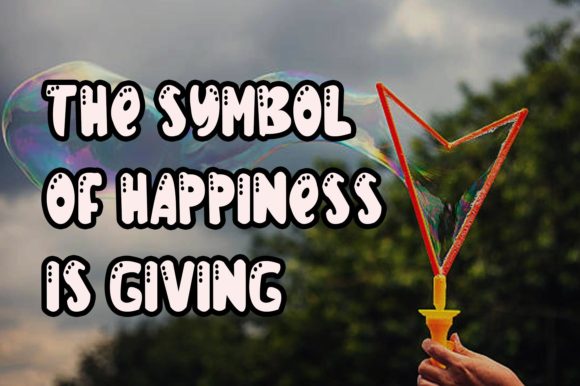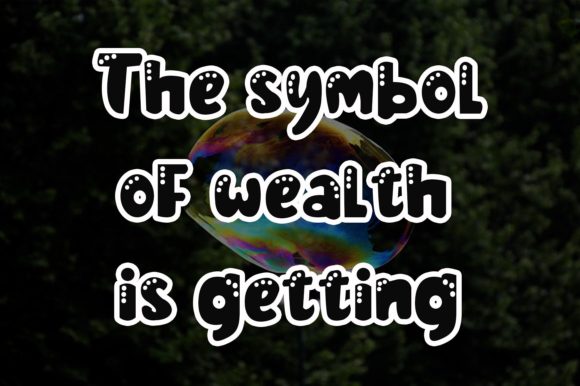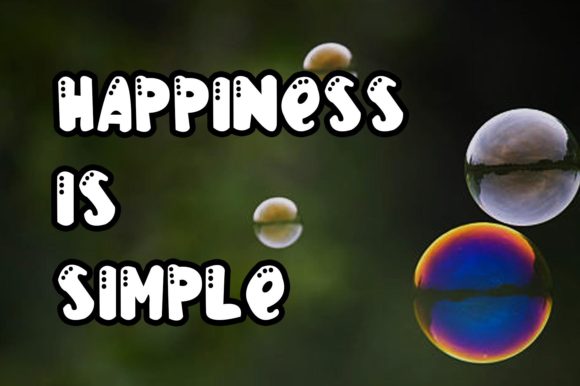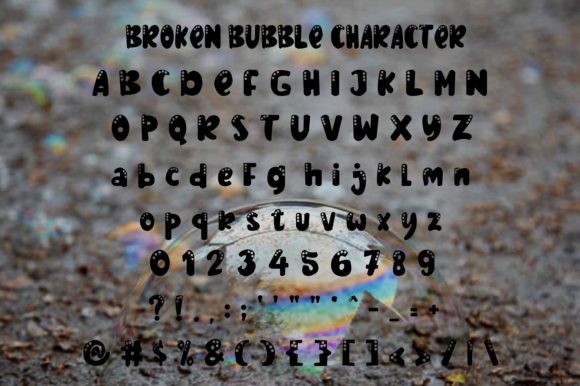
Introducing Broken Bubble Font: The Cute and Friendly Display Font You Need!
Are you tired of using the same old fonts for your creative projects? Look no further! Broken Bubble Font is here to shake things up and bring a fresh touch to your designs. This adorable display font is perfect for anyone looking to add a playful and friendly vibe to their work. Whether you’re a designer, crafter, or simply a DIY enthusiast, Broken Bubble Font is sure to become your new go-to.
What Makes Broken Bubble Font So Special?
Broken Bubble Font is a cute and friendly display font that is sure to turn heads. Its unique and quirky design makes it perfect for a wide range of creative projects, from Instagram posts and stories to calligraphy scripts and DIY crafts. The font’s bubbly and playful personality shines through in every letter, making it an excellent choice for anyone looking to add a touch of whimsy to their work.
Broken Bubble Font is a versatile font that can be used in a variety of contexts. Designers will love using it for:
- Branding and packaging design: Add a playful touch to your brand’s identity with Broken Bubble Font.
- Social media graphics: Make your Instagram posts and stories stand out with this eye-catching font.
- Web design: Use Broken Bubble Font to create a fun and friendly website that reflects your brand’s personality.
Crafters and DIY enthusiasts will also adore Broken Bubble Font for:
- Calligraphy scripts: Add a personal touch to your hand-lettered projects with Broken Bubble Font.
- DIY crafts: Use Broken Bubble Font to create custom signs, banners, and decorations for parties and events.
- Paper crafting: Add a playful touch to your cards, scrapbook pages, and journal entries.
Why Choose Broken Bubble Font?
So, what sets Broken Bubble Font apart from other fonts? Here are just a few reasons why you should choose Broken Bubble Font for your next project:
- Unique design: Broken Bubble Font has a one-of-a-kind design that is sure to grab attention.
- Easy to read: Despite its playful design, Broken Bubble Font is easy to read and understand.
- Versatile: Use Broken Bubble Font in a variety of contexts, from digital designs to hand-lettered projects.
- Cute and friendly: Broken Bubble Font has a bubbly and approachable personality that is sure to delight.
How to Use Broken Bubble Font
Using Broken Bubble Font is easy! Here are a few tips to get you started:
- Pair it with other fonts: Combine Broken Bubble Font with other fonts to create a unique and eye-catching design.
- Experiment with colors: Try out different colors and color combinations to match your brand’s identity or project theme.
- Play with sizes: Use Broken Bubble Font in a variety of sizes to create visual interest and hierarchy.
| Author | scriptstrategy |